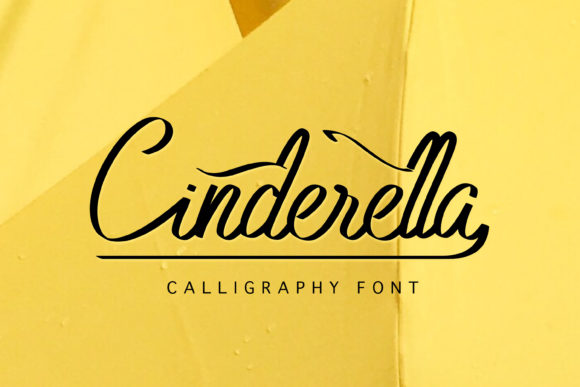
Cinderella Font Download Script Fonts: There’s something magical about a font that feels like it was written with a touch of love and artistry. Cinderella Font is exactly that—a sophisticated handwritten typeface that exudes elegance, charm, and warmth. Much like its fairy-tale namesake, this font has the power to transform the ordinary into something truly enchanting.
Whether you’re designing wedding invitations, crafting memorable greeting cards, or building a sophisticated brand identity, Cinderella Font delivers a unique personality that’s both refined and inviting. Let’s take a closer look at what makes this typeface a must-have in your creative toolkit.
✨ The Story Behind Cinderella Font
Handwritten fonts have been a staple in design for decades, but Cinderella stands out with its flowing strokes, delicate loops, and modern calligraphy style. It is designed to look as though each letter has been carefully penned by a skilled calligrapher—bringing an intimate, personal touch to digital design.
While the exact designer varies depending on the source, the style draws heavy inspiration from wedding calligraphy, fashion branding, and luxury product packaging. Its name, Cinderella, perfectly captures its graceful transformation effect—it can turn even the simplest project into a work of art.
🌟 Key Features of Cinderella Font
Handwritten Elegance – Smooth, stylish letterforms mimic fine penmanship.
Versatile Styling – Works across romantic, luxury, and personal projects.
High Readability – While artistic, it remains clear and easy to read for titles and short phrases.
Modern Calligraphy Vibe – Combines a classic handwritten look with a contemporary twist.
🎯 Perfect Use Cases for Cinderella Font
Cinderella’s charm lies in its versatility. You can use it across various creative projects, including:
Wedding Invitations & Stationery – Romantic and graceful for save-the-dates, menus, and vows.
Branding & Logos – Ideal for boutique shops, beauty products, and high-end fashion.
Greeting Cards – Whether for birthdays, anniversaries, or thank-you notes, it adds a personal touch.
Event Posters – Perfect for gala nights, bridal showers, or charity events.
Social Media Graphics – Makes Instagram posts, Pinterest pins, and Facebook ads look classy.
Merchandise – Works beautifully on t-shirts, mugs, tote bags, and packaging.
🎨 Design Tips for Using Cinderella Font
Because Cinderella is an ornate handwritten font, it works best when used thoughtfully:
Pair with a Minimal Sans-Serif – Balances the elegance with clean readability. Fonts like Montserrat or Open Sans are perfect companions.
Use for Headlines, Not Paragraphs – Keeps your design from feeling cluttered.
Play with Ligatures – Access the swashes and alternates to make your text truly custom.
Choose Soft Color Palettes – Pastels, gold, and white bring out Cinderella’s romantic side.
Mind the Space – Give the letters room to breathe for maximum visual impact.
✅ Why Choose Cinderella Font?
Elegant & Timeless – Works well for formal and romantic projects.
Professional Appeal – Adds a high-end, custom look to your designs.
Versatile – Suitable for print, digital, and product design.
Personal Touch – Feels warm and handwritten, even in a digital format.
Q2. What makes Cinderella Font special?
Its sophisticated handwritten style, complete with decorative swashes and ligatures, sets it apart from standard script fonts.
Q4. Is this font good for wedding invitations?
Absolutely. Cinderella is perfect for romantic and formal stationery.
Q5. Can I pair Cinderella Font with other fonts?
Yes, pair it with clean sans-serifs or classic serifs to maintain balance.
Q6. Will Cinderella Font work well in logos?
Yes—especially for boutique, beauty, and fashion brands.
📌 Final Thoughts
Cinderella Font isn’t just a typeface—it’s a designer’s dream for bringing romance and sophistication into any project. Its smooth, handwritten curves are perfect for weddings, high-end branding, or heartfelt messages. With PUA encoding, it’s also user-friendly, making it accessible to beginners and professional designers alike.
If your project needs a dose of elegance and a personal touch, Cinderella Font will deliver every time. From wedding vows to brand logos, it’s the perfect happily-ever-after for your designs.